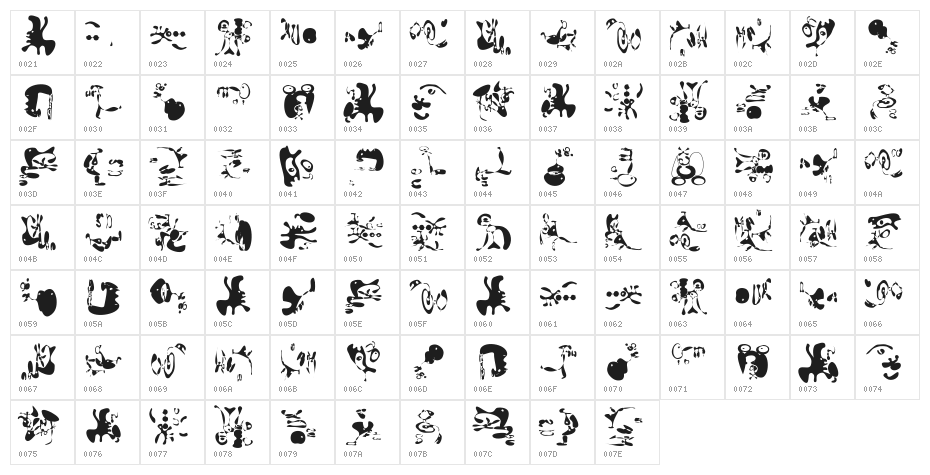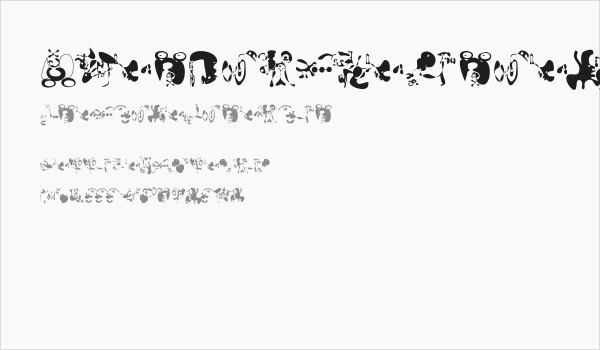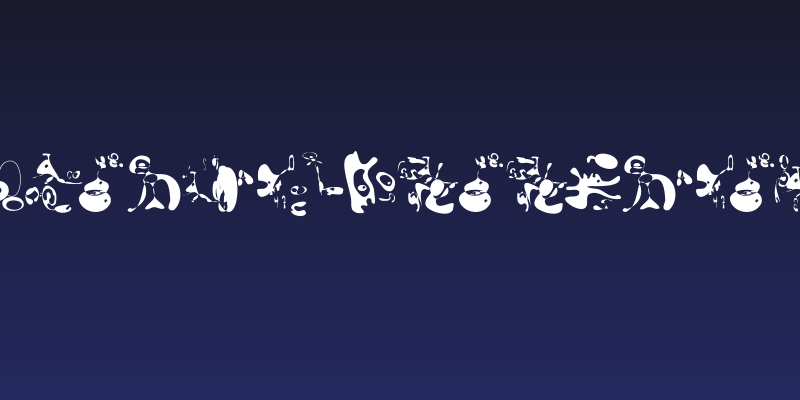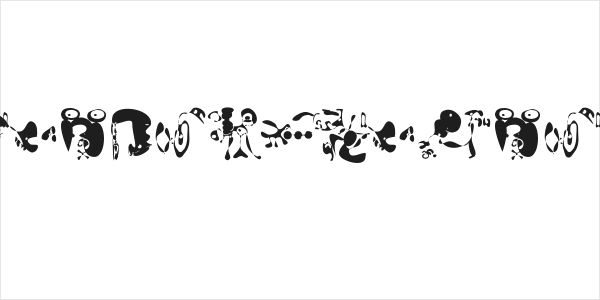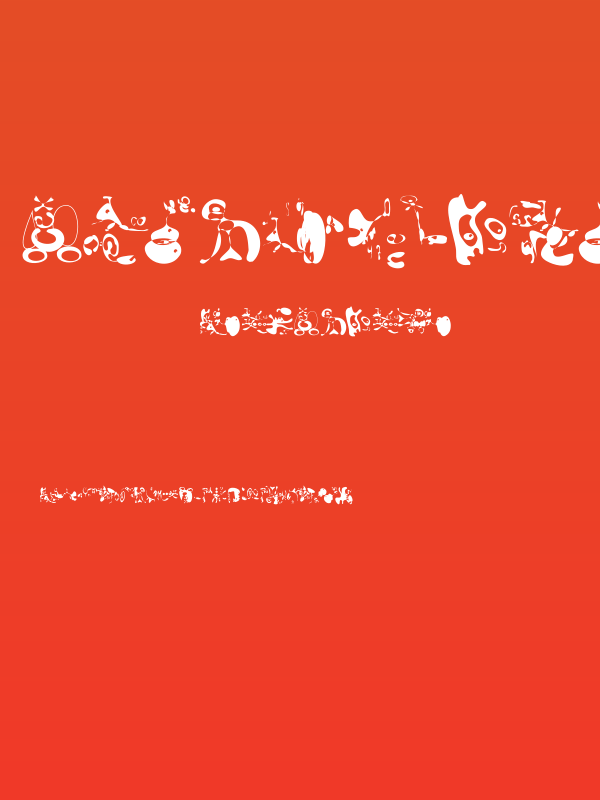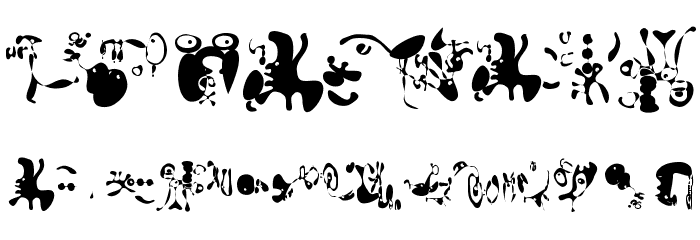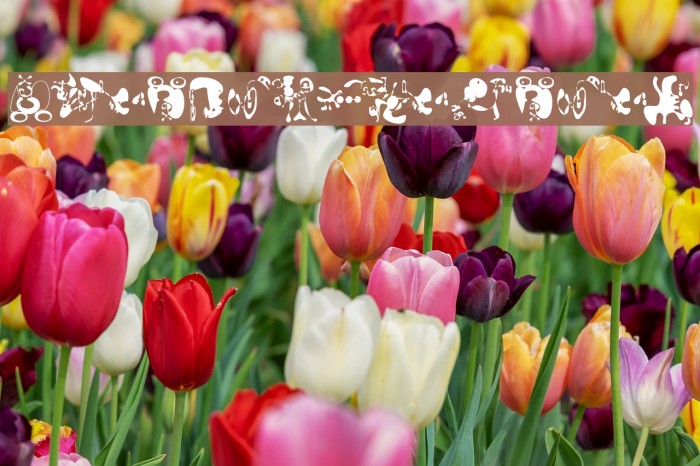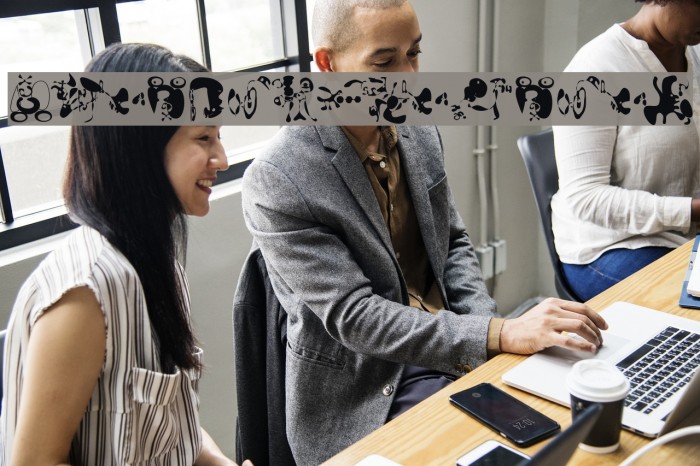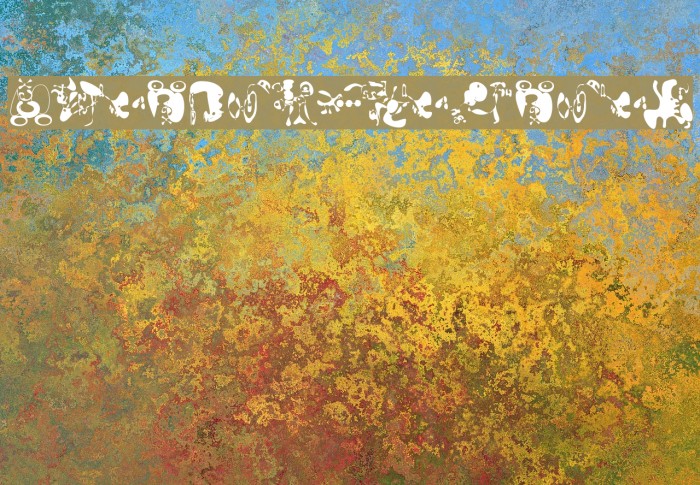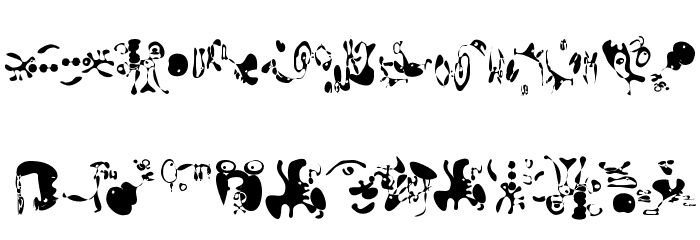
GuernicaMemories Font
Highly abstract, surreal, and decorative letterforms with organic, irregular shapes and bold black-and-white contrast, evoking a sense of chaos and artistic expression. The glyphs are not easily legible and appear more as expressive illustrations than traditional characters.
| Overall Style | Surreal, Abstract, Artistic, Decorative |
| Use Case | Artistic displays, Posters, Experimental design, Not suitable for body text |
| Proposed Projects | Art installations, experimental posters, album covers, avant-garde branding, gallery invitations. |